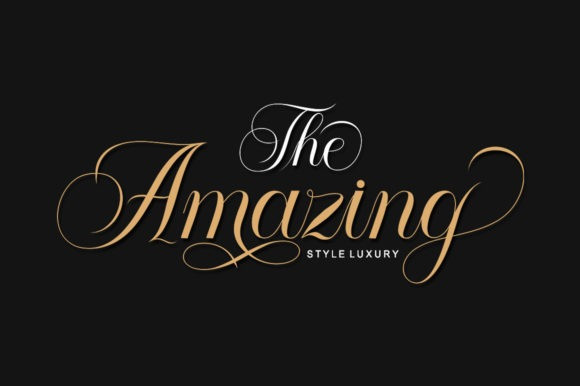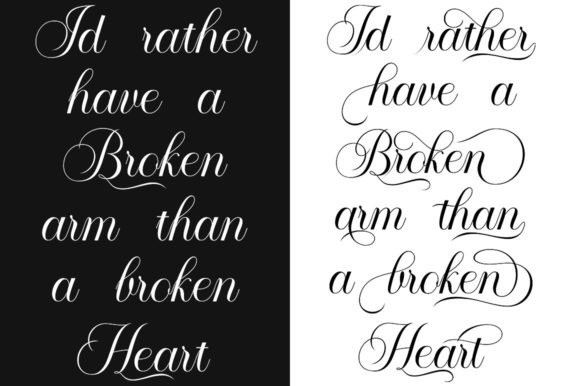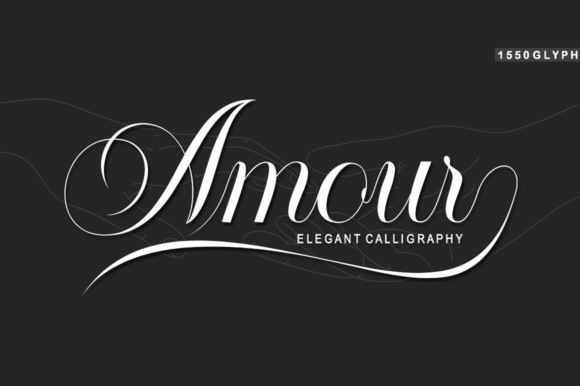
Amour Font
Amour Calligraphy Font is a delicate, elegant and flowing handwritten font. It has beautiful and well balanced characters and as a result, it matches a wide pool of designs. This font is PUA encoded which means you can access all of the amazing glyphs and ligatures with ease!